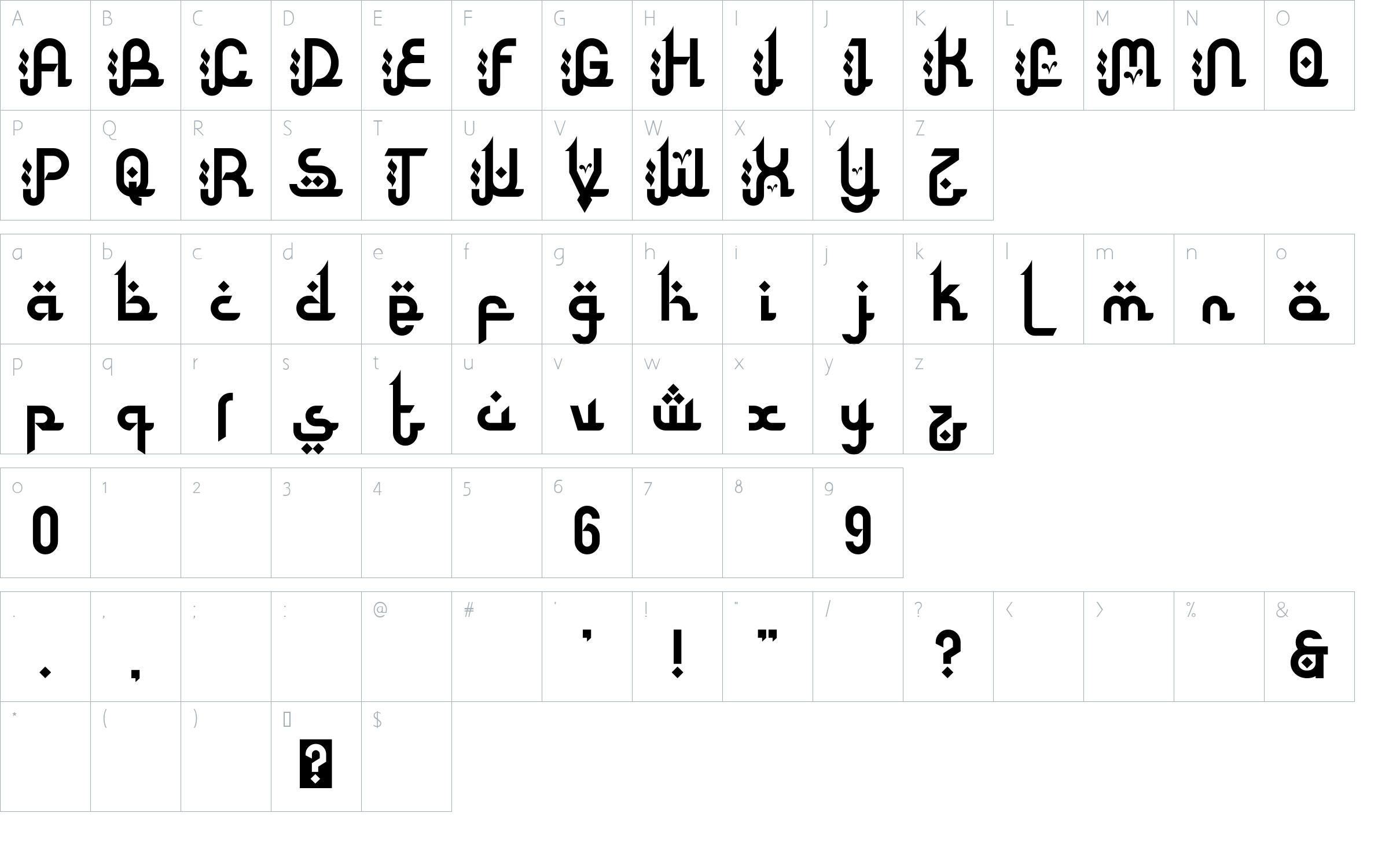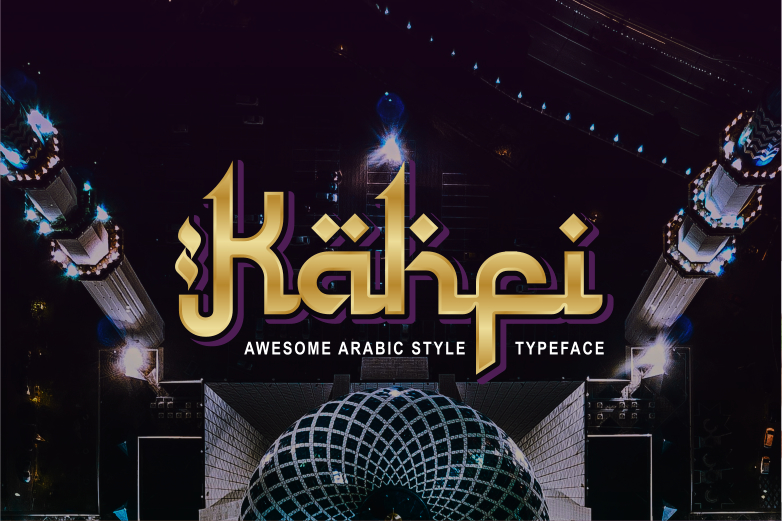
Kahfi – Awesome Arabic Style Typeface Font
About Kahfi – Awesome Arabic Style Typeface
Kahfi infuses Latin letters with a distinct Arabic style. It’s the perfect font for any design projects that require a Middle Eastern aesthetic.